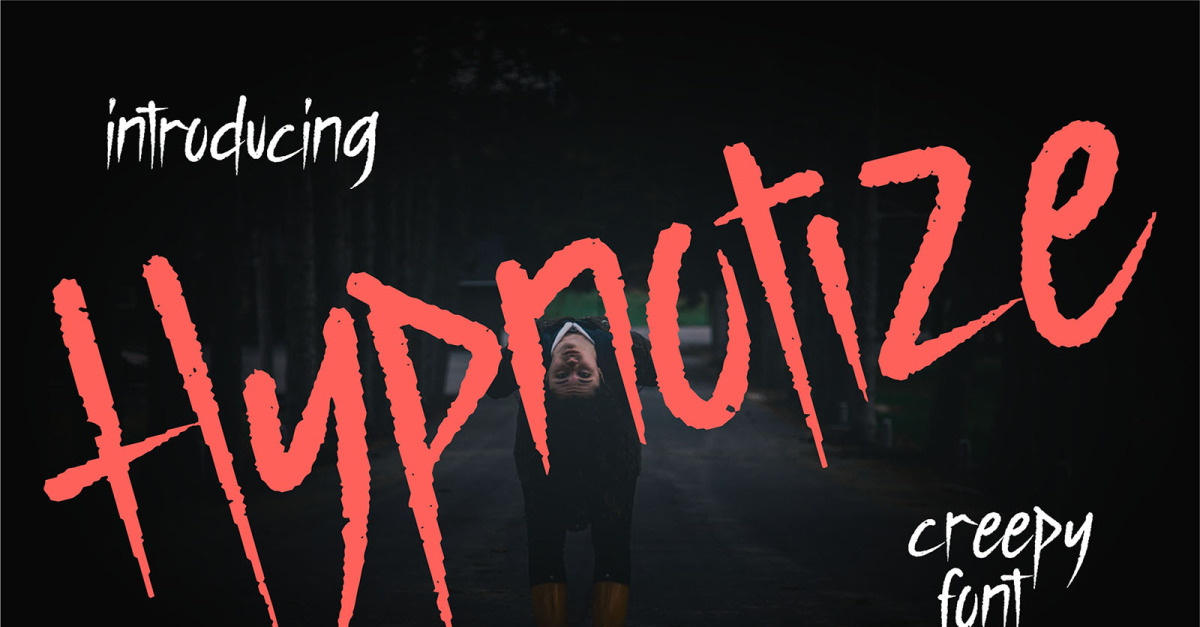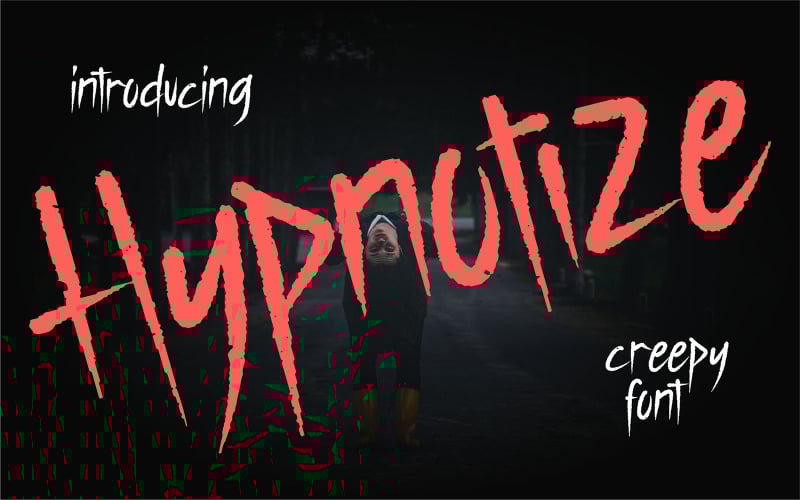
Hypnotize | Creepy Font
**Hypnotize | Creepy Font** with a calligraphy style, So beautiful on invitation like greeting cards, branding materials, business cards, quotes, posters, and more!